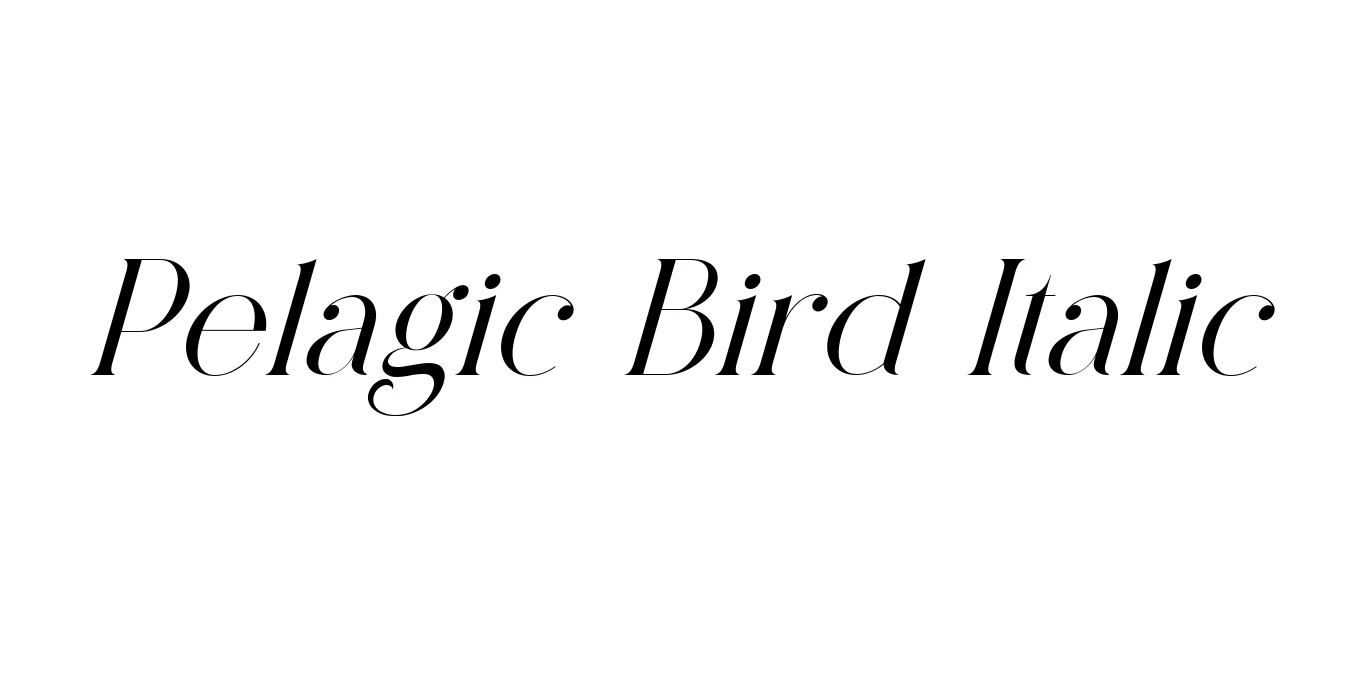
Pelagic Bird Italic
Designed by Derek Vogelpohl (Apostrophic Lab)
| Category | Display / Script |
| Designer | Derek Vogelpohl (Apostrophic Lab) |
Pelagic Bird Italic is a distinctive display typeface that embodies the fluid motion and sharp grace of seabirds in flight. Released as part of the influential Apostrophic Lab collection, this font features elongated strokes and a rhythmic slant that gives it a sophisticated, calligraphic quality. Its unique balance between organic curves and pointed terminals makes it an exceptional choice for thematic designs that require a sense of movement and natural elegance.
The typeface is particularly effective in large formats where its intricate details can be fully appreciated. While it draws inspiration from nautical themes and traditional script styles, its execution is modern and versatile. It has become a favorite among designers looking to inject a sense of adventure and refined craftsmanship into editorial layouts, luxury branding, and creative typography projects.
Pelagic Bird Italic Best Uses
Perfect for creating memorable logos with a maritime or organic feel.
Excellent for titles of adventure novels or poetry collections.
Adds a touch of sophisticated, hand-drawn elegance to formal event stationery.
Striking and legible for creative editorial headings and magazine layouts.